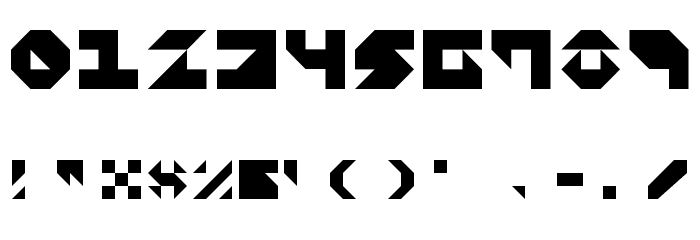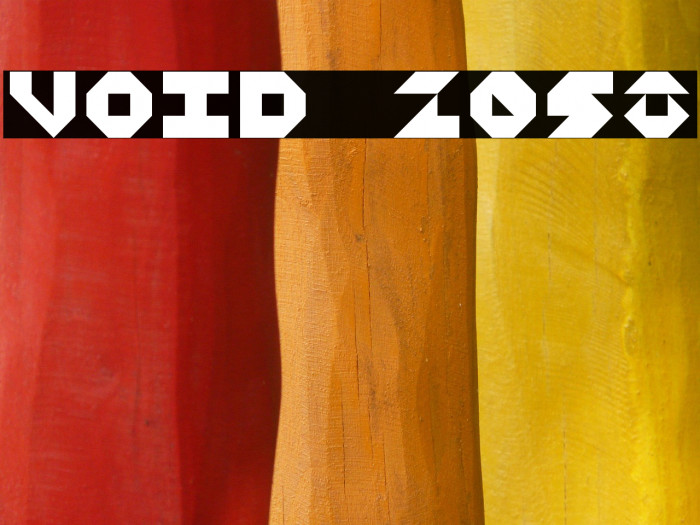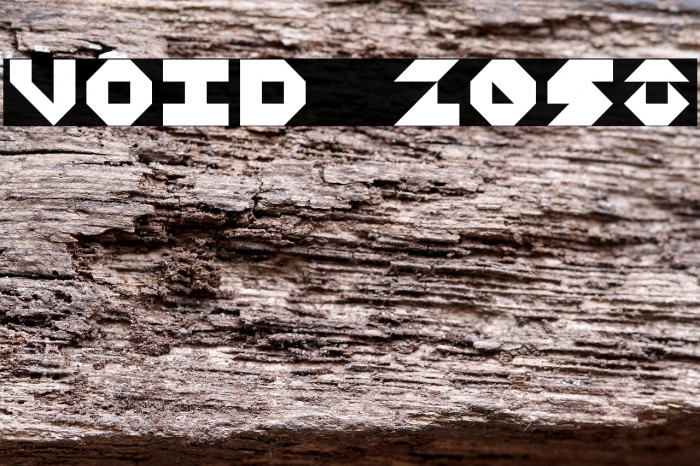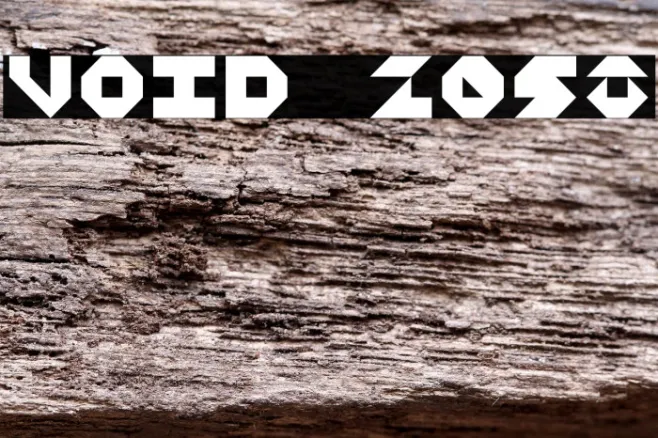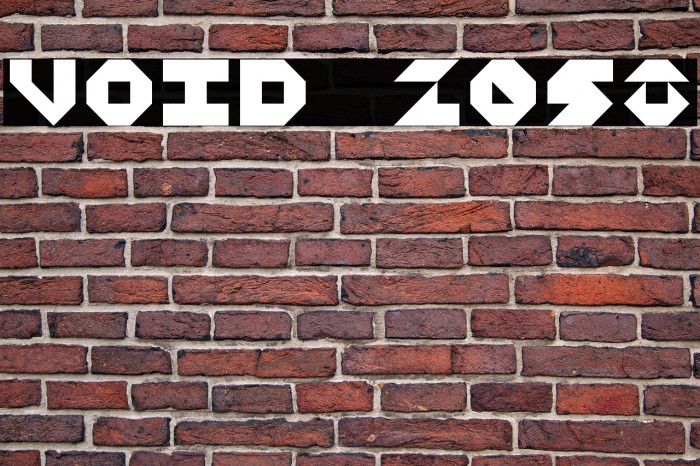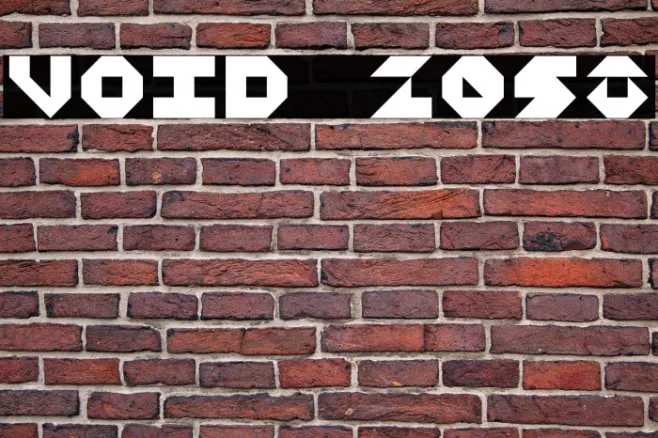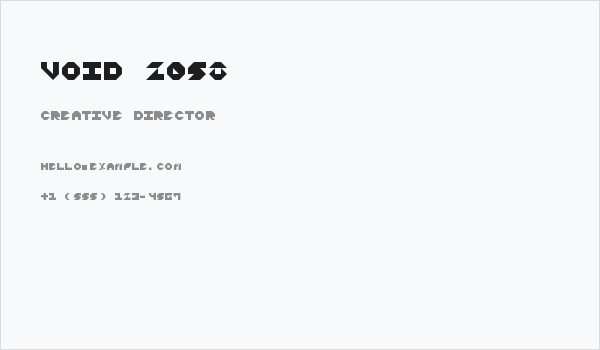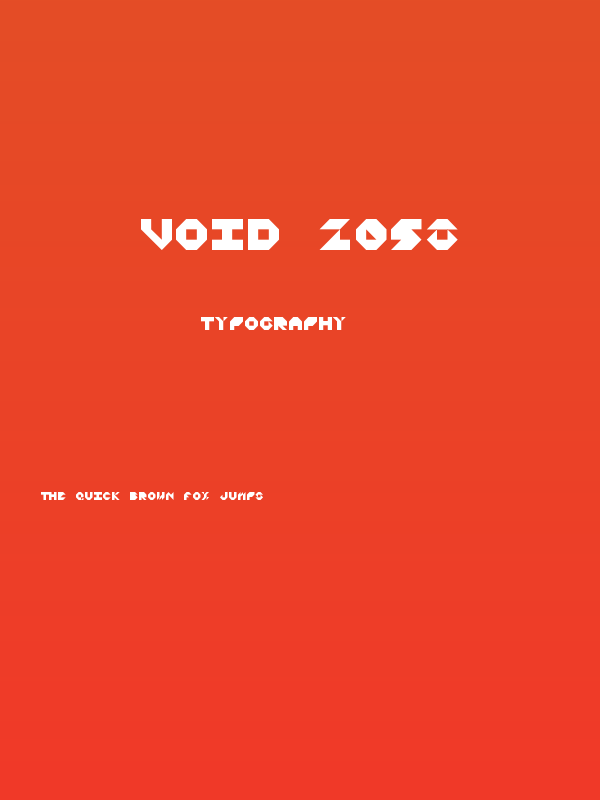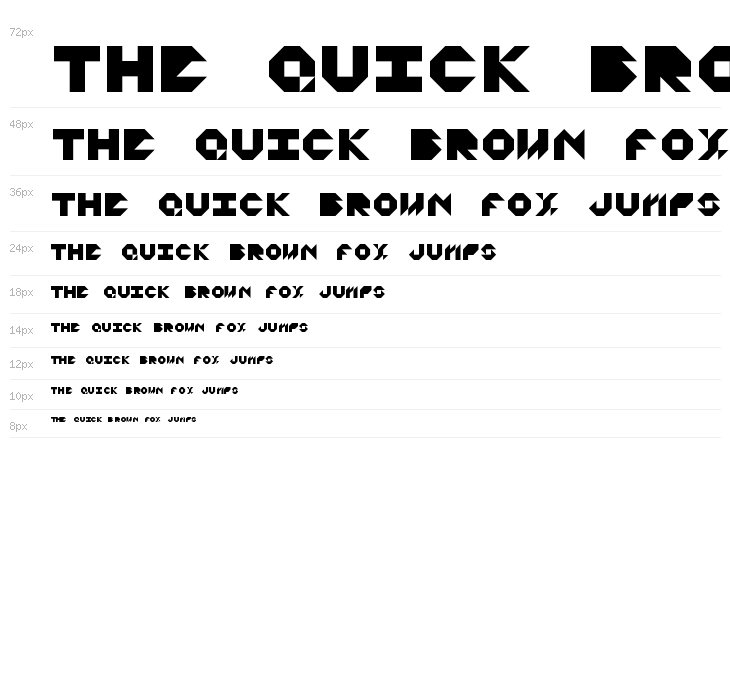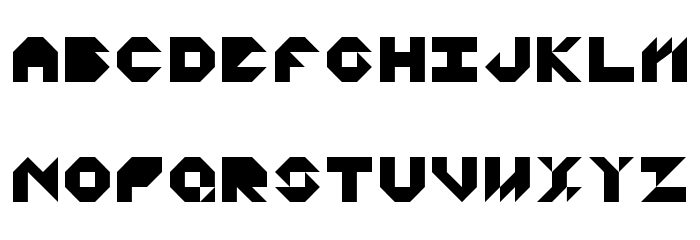
Void 2058 Font
Void 2058 Description
This font features a bold, futuristic design with sharp, angular lines and geometric shapes. Each character is crafted with a unique combination of solid and cut-out sections, creating a dynamic and edgy appearance. The uppercase and lowercase letters maintain a consistent style, emphasizing a modern, tech-inspired aesthetic. The numerals and special characters follow the same design principles, ensuring uniformity across the entire typeface. This font's striking visual impact makes it ideal for projects that require a strong, contemporary look.
| Proposed Projects | Ideal for sci-fi themed designs, tech branding, video game titles, and futuristic posters. |